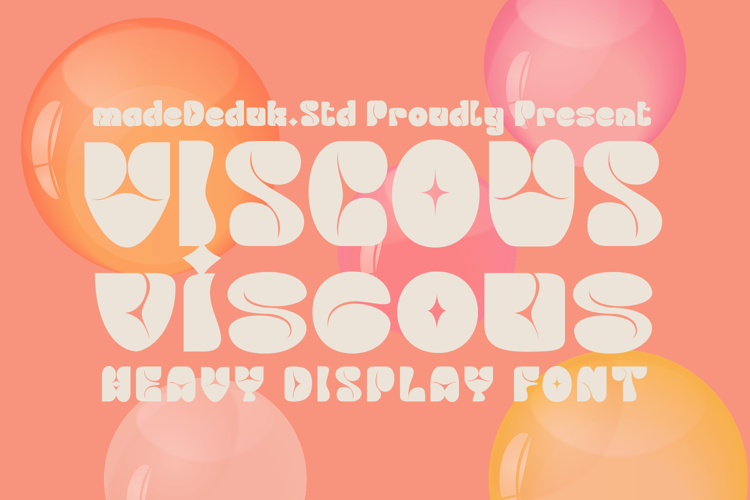
Viscous Heavy Display Font
Introducing Viscous, a bold display typeface that exudes confidence while maintaining a warm impression. Perfect for a wide range of applications, including book titles, branding, product packaging, invitations, quotes, labels, posters, and logos, Viscous is a powerful choice for any creative endeavor.